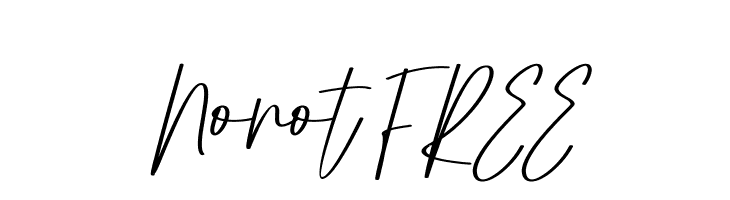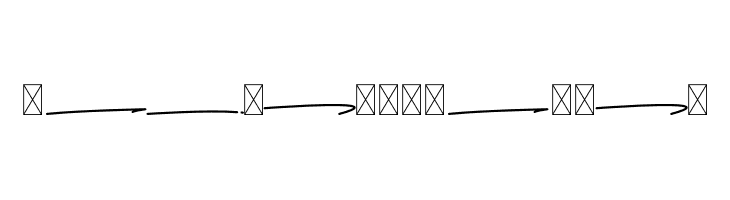
A bold, shadowed outline font with a dynamic and playful style.
A bold, decorative font with playful serifs and dynamic strokes.
A cursive, handwritten font with elegant, flowing strokes.
A bold, dotted font with a modern, digital aesthetic.
A lively handwritten font with fluid strokes and a modern, approachable style.
Hand-drawn decorative doodle icons and borders with a whimsical, playful style.
A rustic, slab serif font with a textured, vintage appearance.
A lively and expressive handwritten font with fluid, dynamic strokes.
A bold, dynamic font with a modern and energetic style.
An elegant script font with flowing, cursive strokes and refined style.
设计师偏爱 The Mumbai Sticker Demo Shadow Outline, Kuramo DEMO, Griselda Regular, K22 Xanthus and JahannamBalla,因为其造型干净、适用范围广—— 从品牌识别到落地页、海报都能胜任。